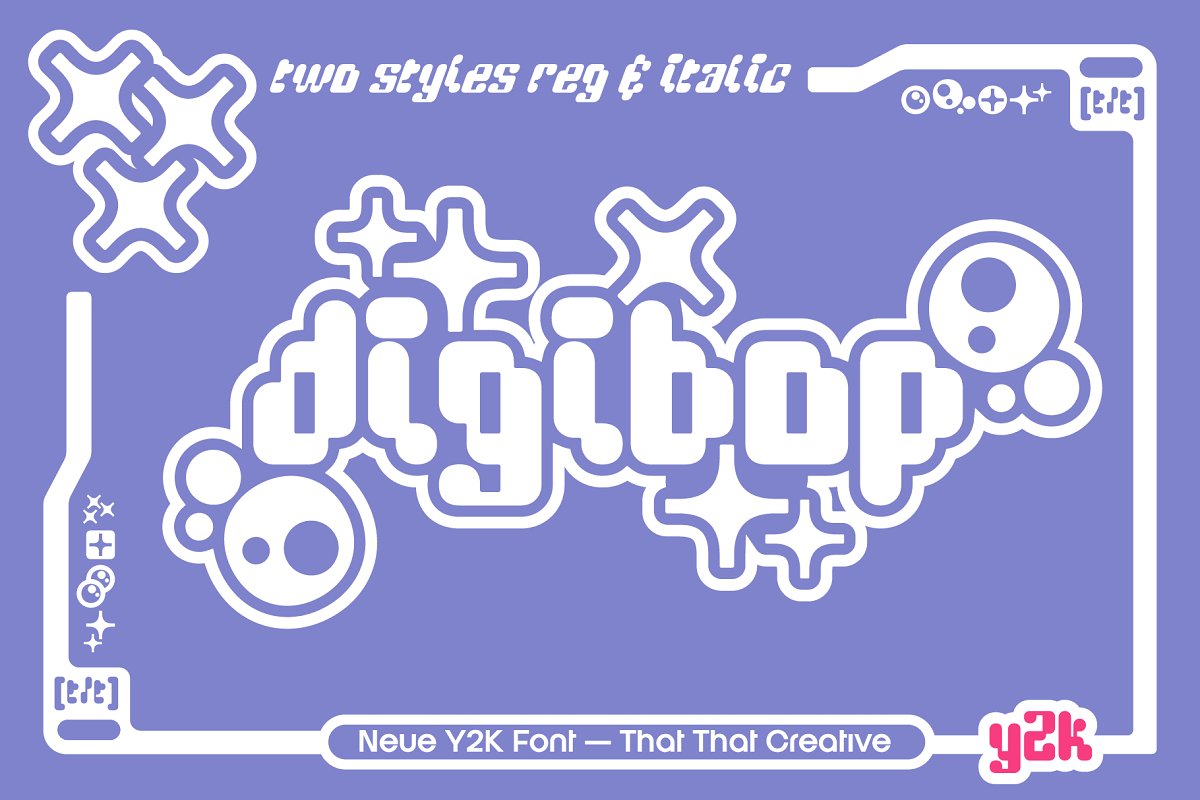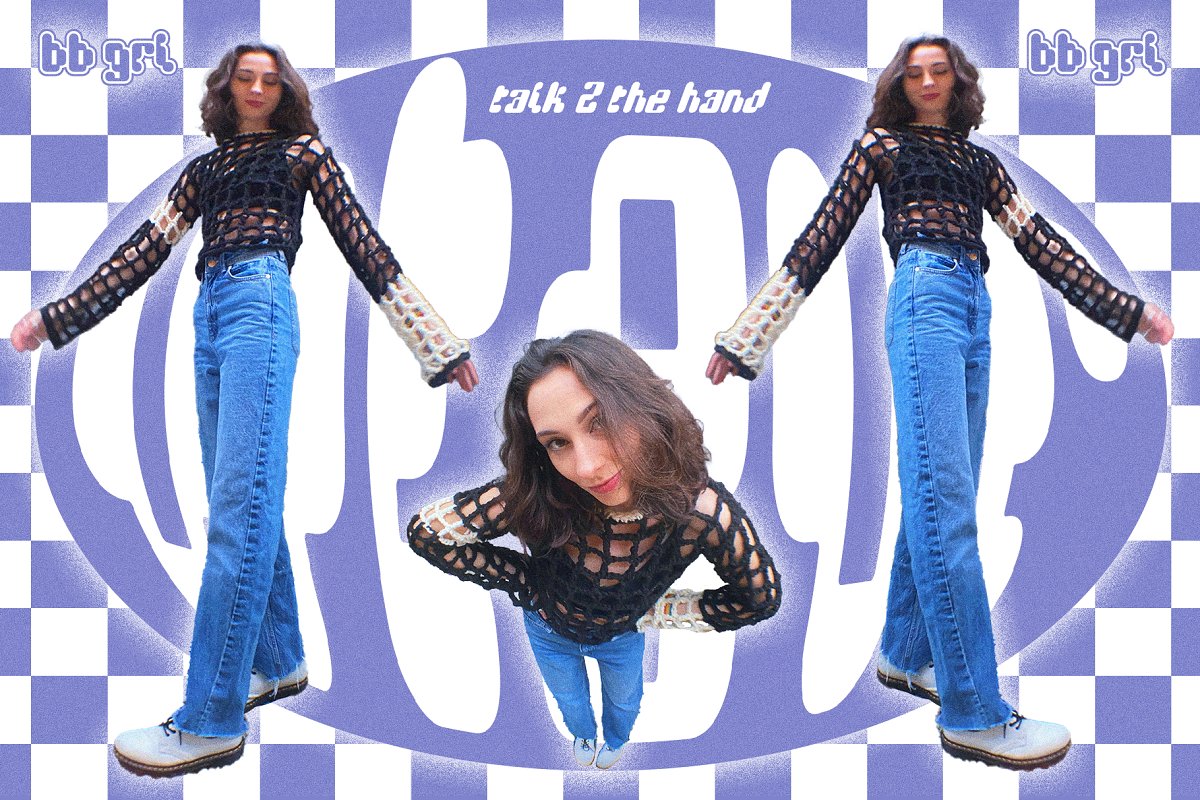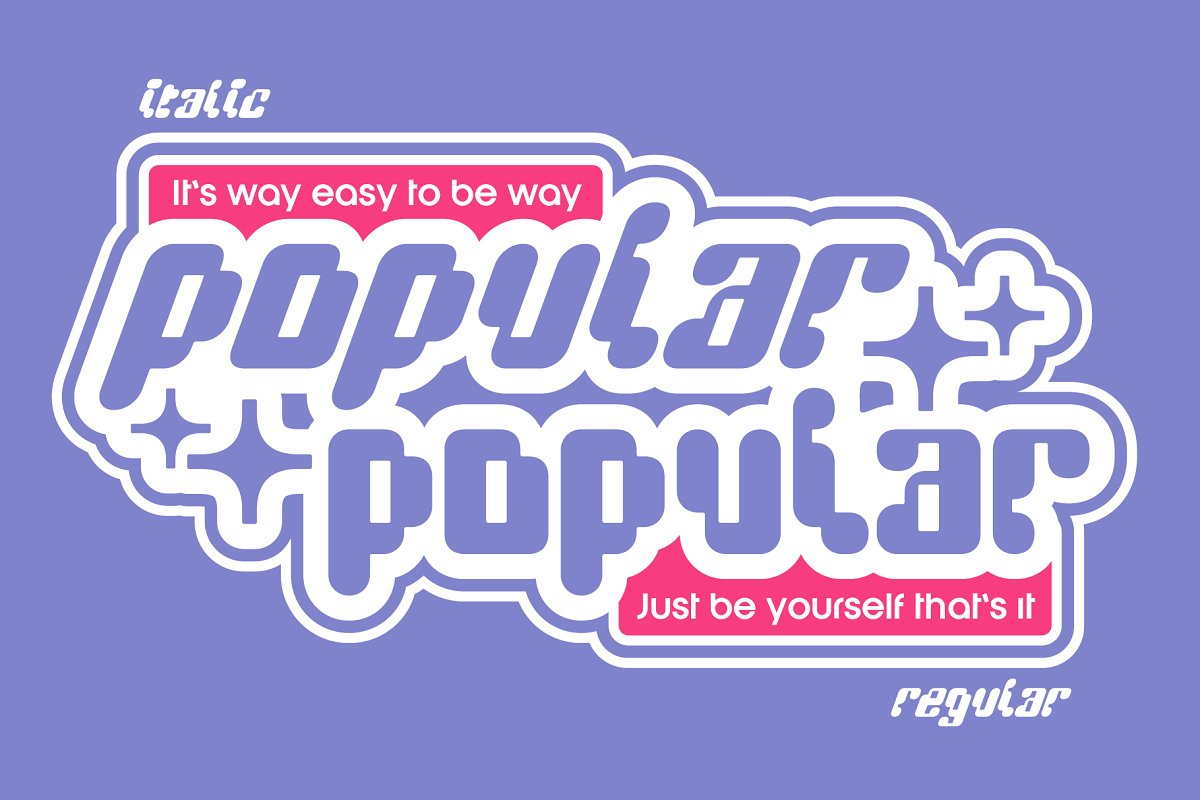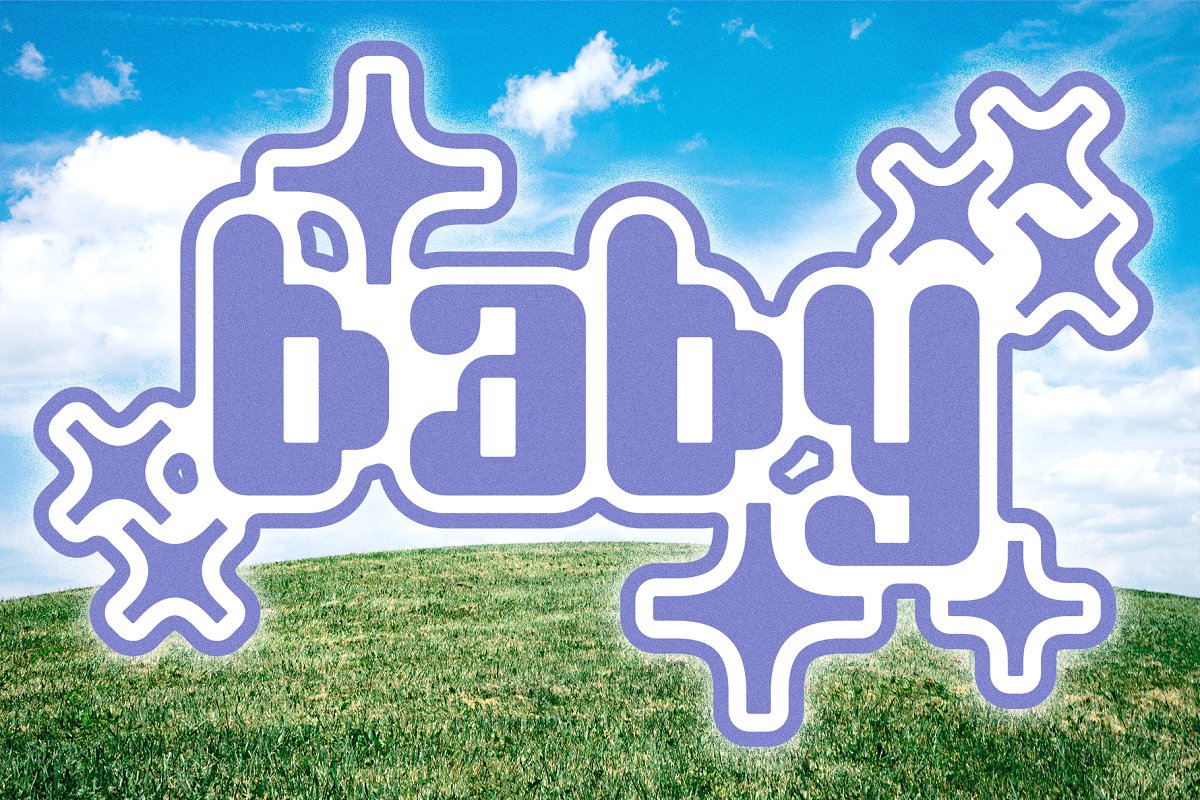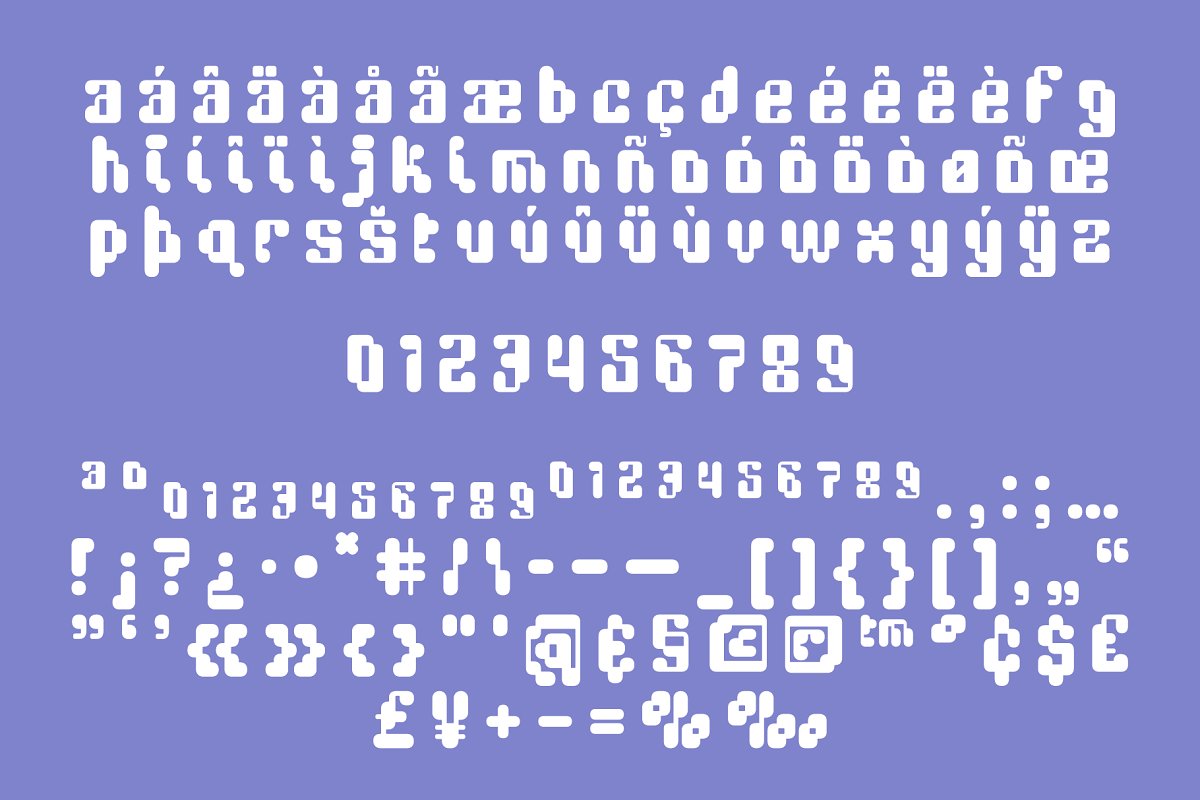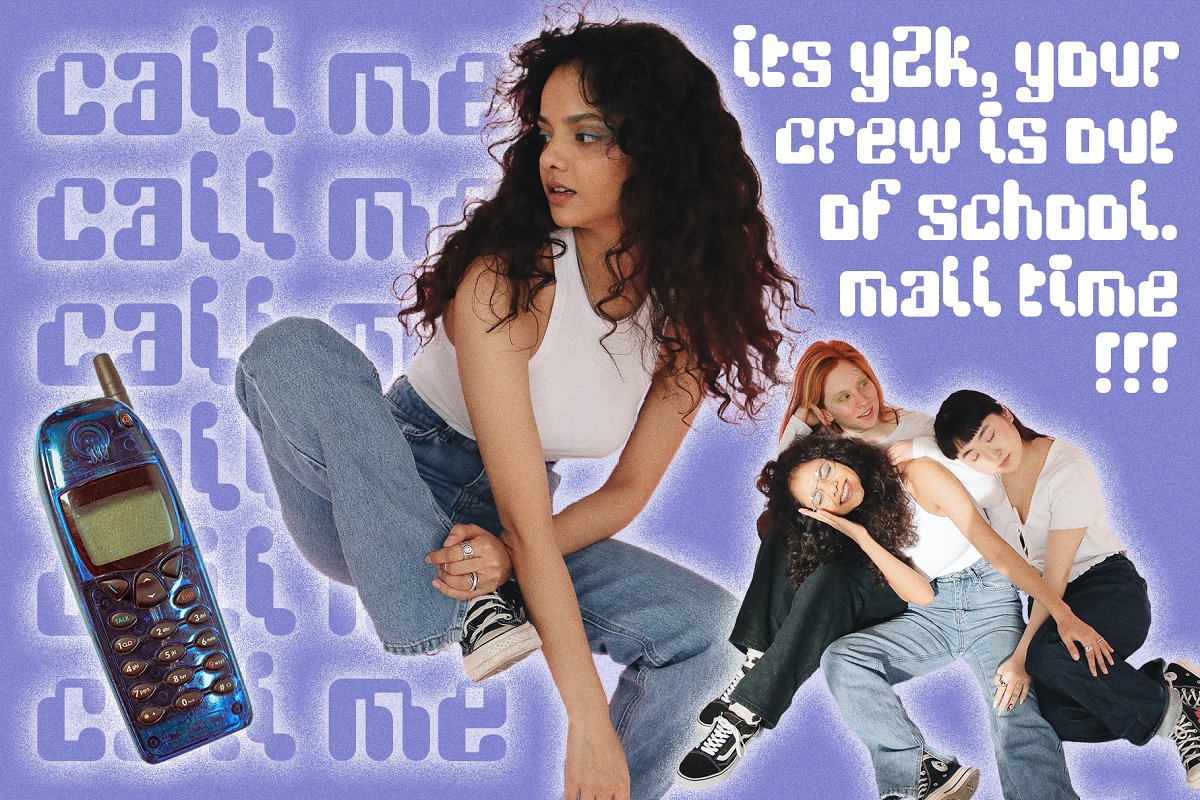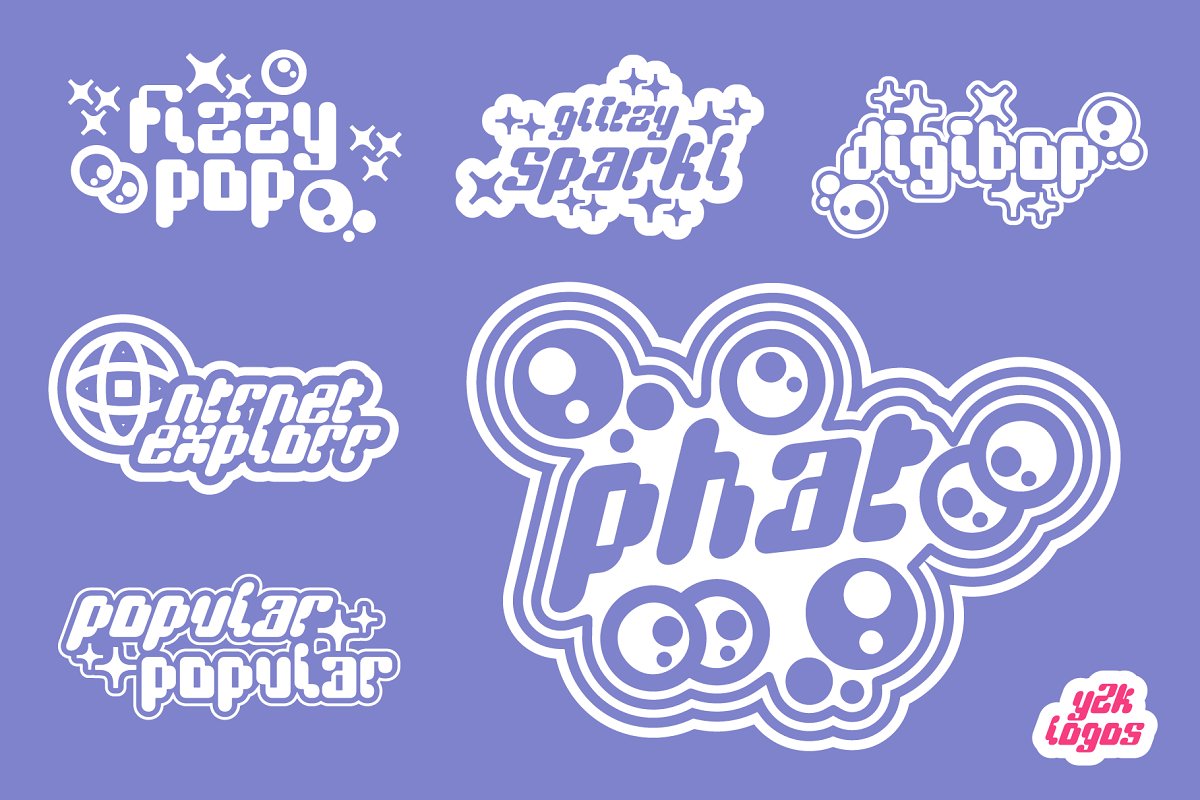
About the YK DigiBop Duo Font
DigiBop Y2K is a real head turner. It is a modern take on a retro (is Y2K retro yet) digital era font. this font is perfect for branding, Instagram, print, posters, logos, magazines, headlines and more. It comes in regular and italic. This font hits on 90’s and early 2000’s nostalgia in a big way adding a playful bold fun take on the Y2K trend.
Font Includes
- Lowercase
- Symbols
- Punctuation
- Numbers (3 sets of numbers)
- Unique star and bubble glyphs